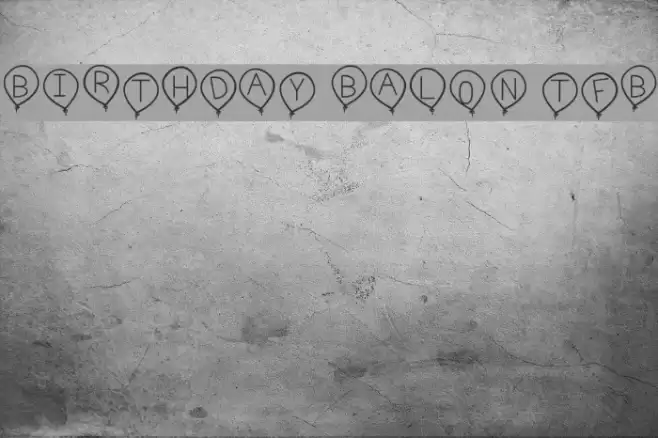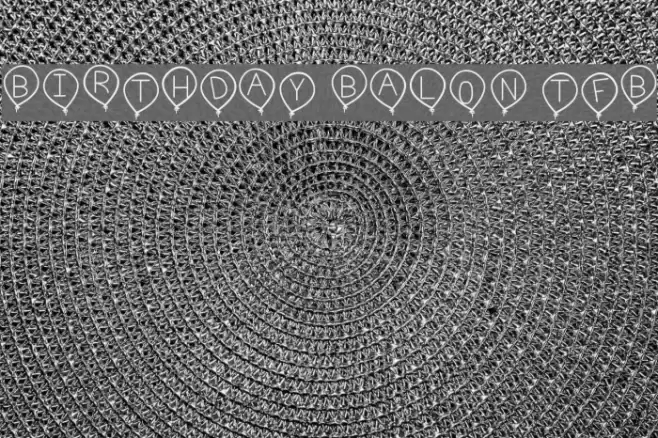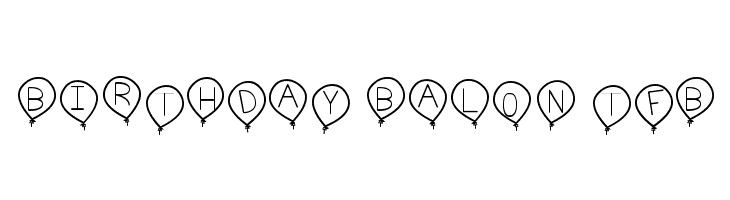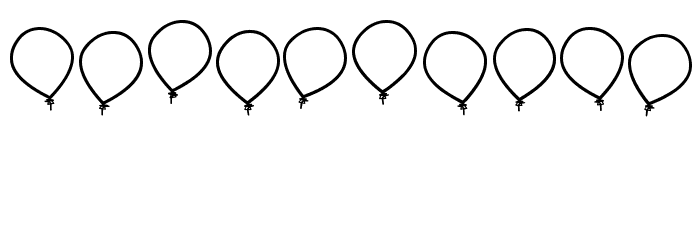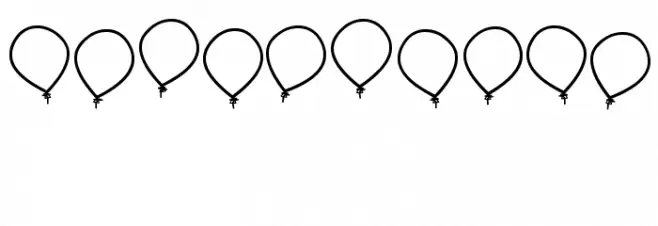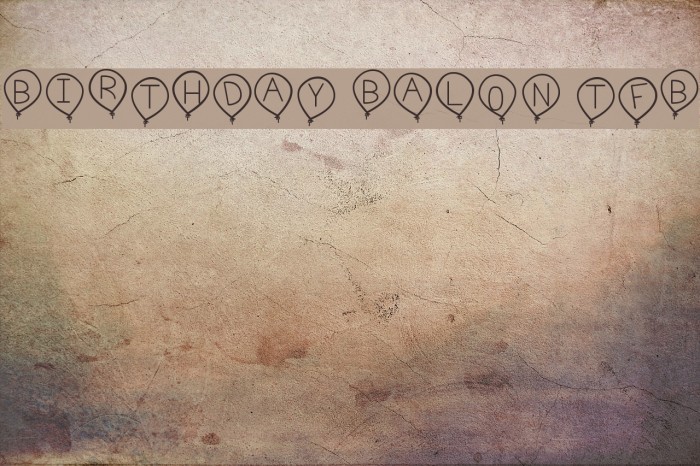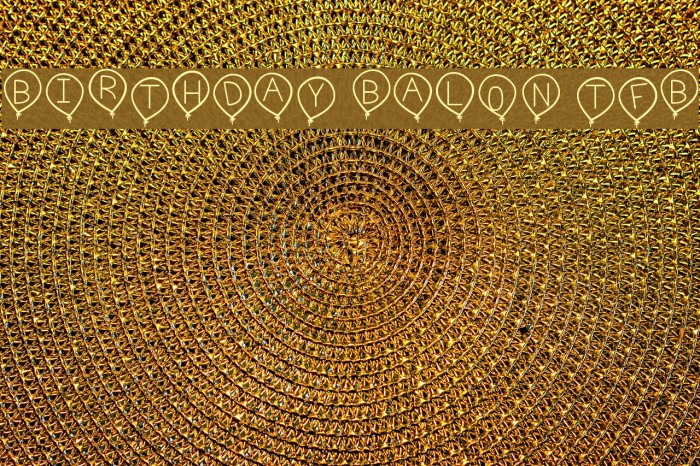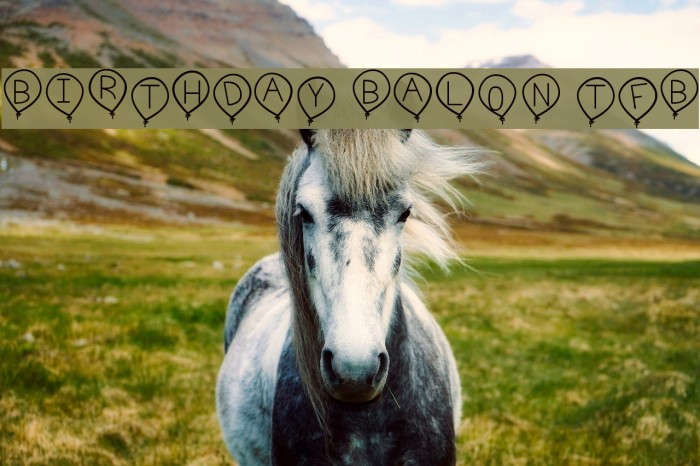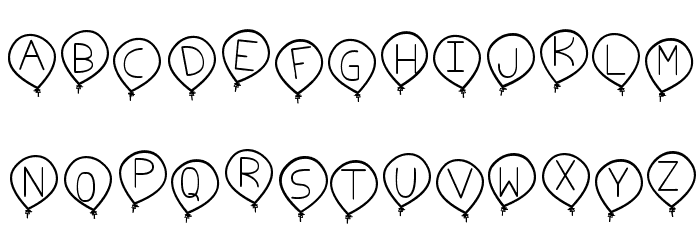
birthday balon tfb Font
birthday balon tfb Description
This playful and whimsical font features each letter encapsulated within a balloon shape, giving it a festive and celebratory appearance. The letters are simple and sans-serif, with a hand-drawn quality that adds to the charm of the design. The balloon outlines are bold and consistent, creating a uniform look across all characters. This font is perfect for projects that aim to convey joy and fun, such as birthday invitations, party decorations, or children's event promotions. The unique balloon motif makes it stand out, adding a touch of creativity and lightheartedness to any text.
A playful font with letters inside balloon shapes, perfect for festive occasions from Decorative fonts.
- Proposed Projects: Ideal for birthday invitations, party decorations, children's events, and festive banners.
- Overall Style: Playful, Whimsical
- Use Case: Headlines, Invitations, Decorations